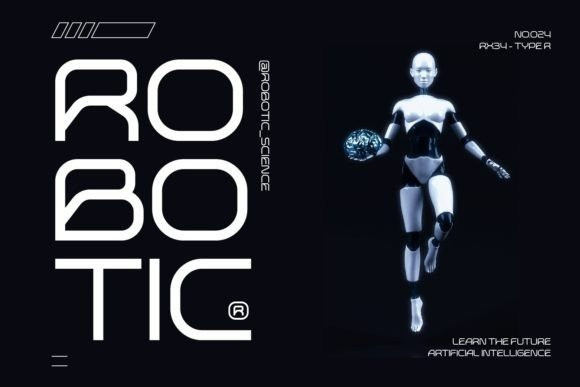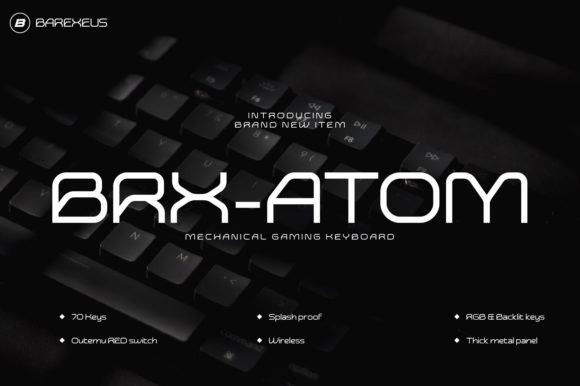
Neotrax Futuristic Font
Neotrax Futuristic Font is a futuristic sans diplay font. Add it confidently to your projects and you will love the results! It is perfect for your up coming projects such as logo branding, editorial design, esport design, gaming industry, music poster, website design, modern advertising design and so much more.